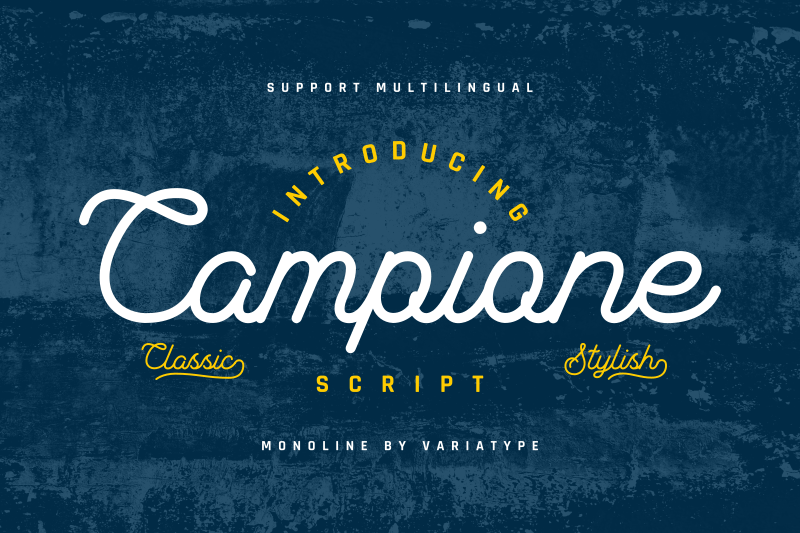
Font name: | Campione |
Author: | Mukhlis Muhammad |
Note by Mukhlis Muhammad | |
Introducing Campion Script a monoline by Variatype. This font is a classic, stylish, simple script font. Attention! Please read this carefully. This font is free for PERSONAL USE ONLY! You are not allowed to use this font in any commercial purpose. For example, if you are making money from designing and you use this font in your commercial design project, or you sell products and you use this font as your promotional or as your logo, both of the cases are not allowed, you need to purchase the license. Any donations are welcome, please visit https://paypal.me/variatype If you want to buy the full version and get commercial license, please go to https://fontbundles.net/variatype/304112-campione-script If you need to ask us something, please contact variatype.id@gmail.com Thank you. |